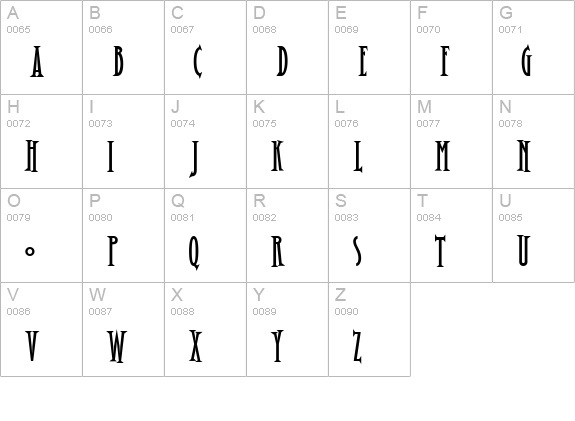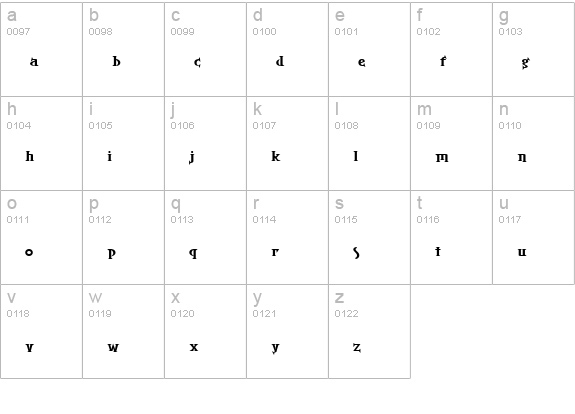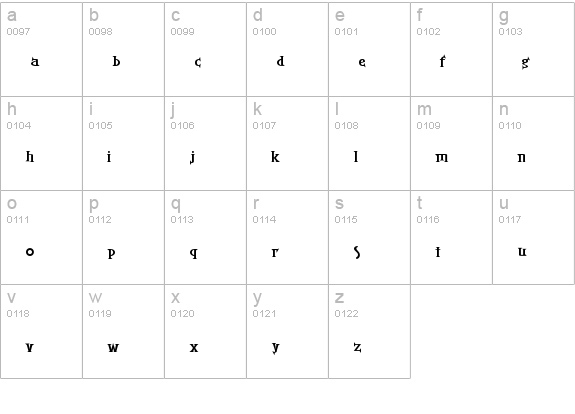
Jack Bisio Font Details
Introducing the magnificent Jack Bisio font, a stunning typeface that combines elegance with a touch of modernity. With its sleek and sophisticated design, this font is perfect for adding a touch of class to any project. But what makes Jack Bisio font truly extraordinary is that it is completely free! Yes, you read that right. This high-quality font is freely available to download at FontsMarket.com. Whether you're a designer, a blogger, or just someone looking to spruce up their documents, Jack Bisio font is the perfect choice. Featuring a clean and crisp appearance, Jack Bisio font is versatile and can be used in a variety of projects. From logos and branding to invitations and headlines, this font will make your designs stand out from the crowd. Its smooth lines and well-balanced proportions give Jack Bisio font an air of sophistication, making it a favorite among designers and typographers alike. With a wide range of weights and styles, you'll have endless possibilities to explore and create stunning visual compositions. So why wait? Take advantage of this incredible opportunity to enhance your designs with the timeless elegance of Jack Bisio font. Download it for free at FontsMarket.com and let your creativity soar.